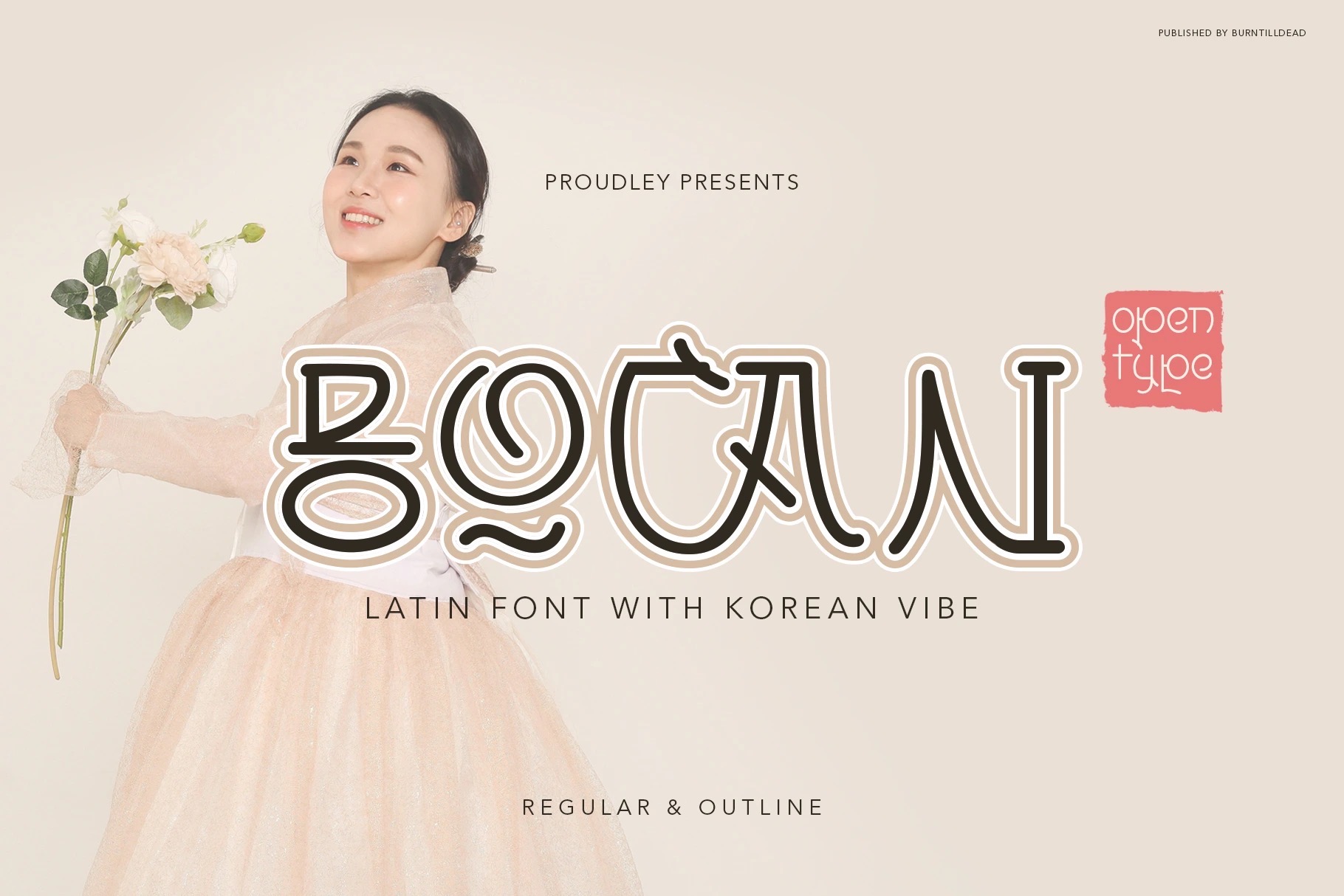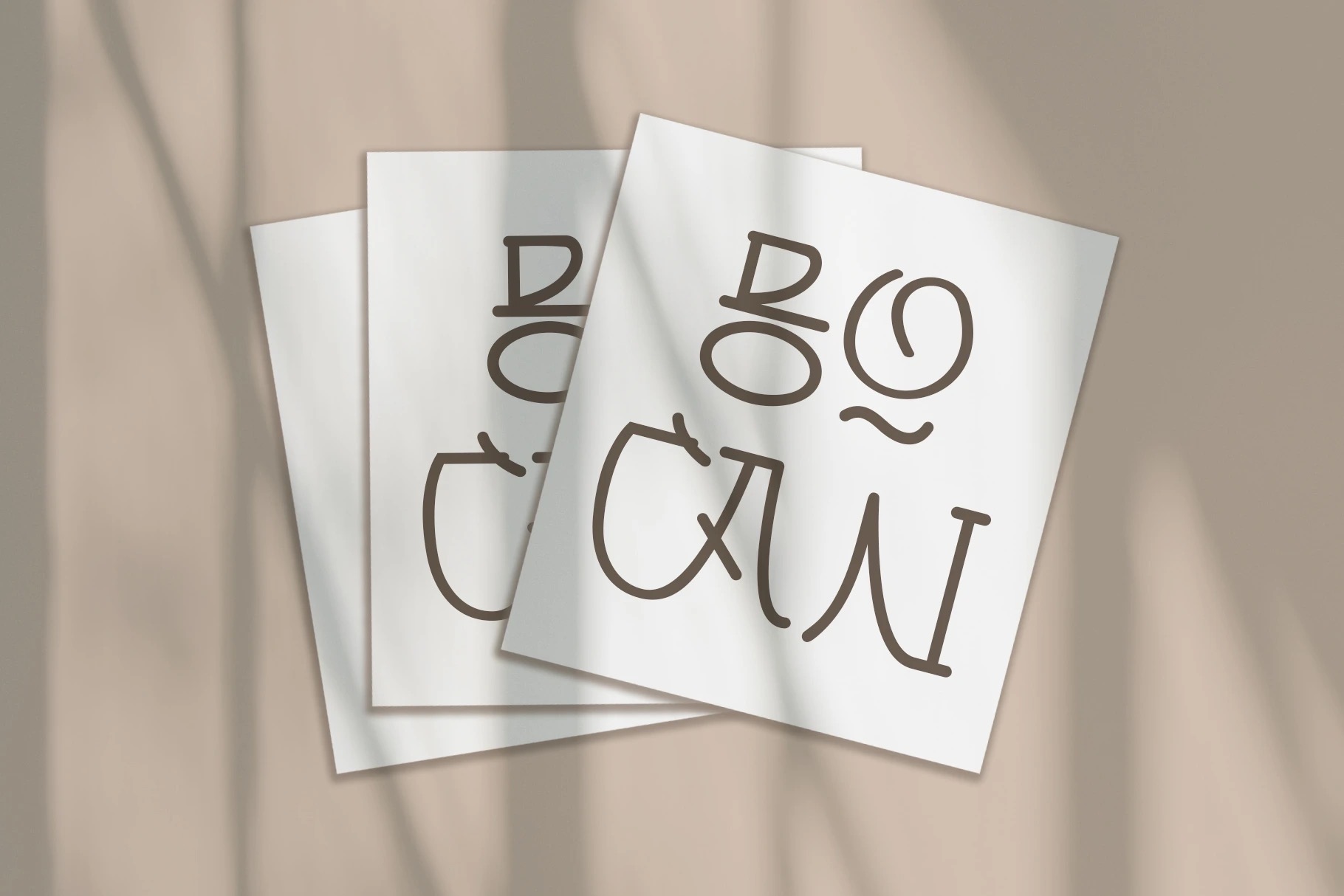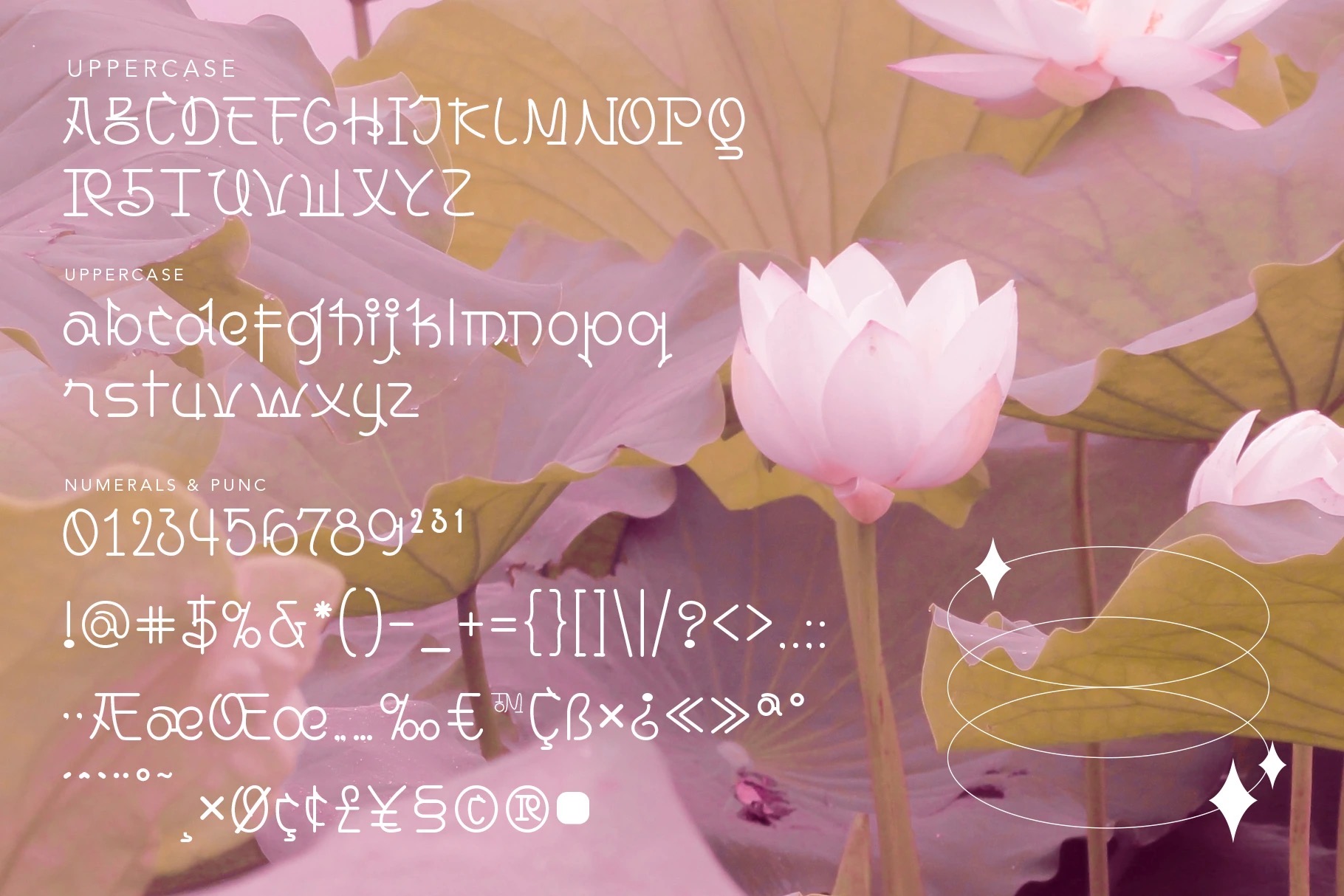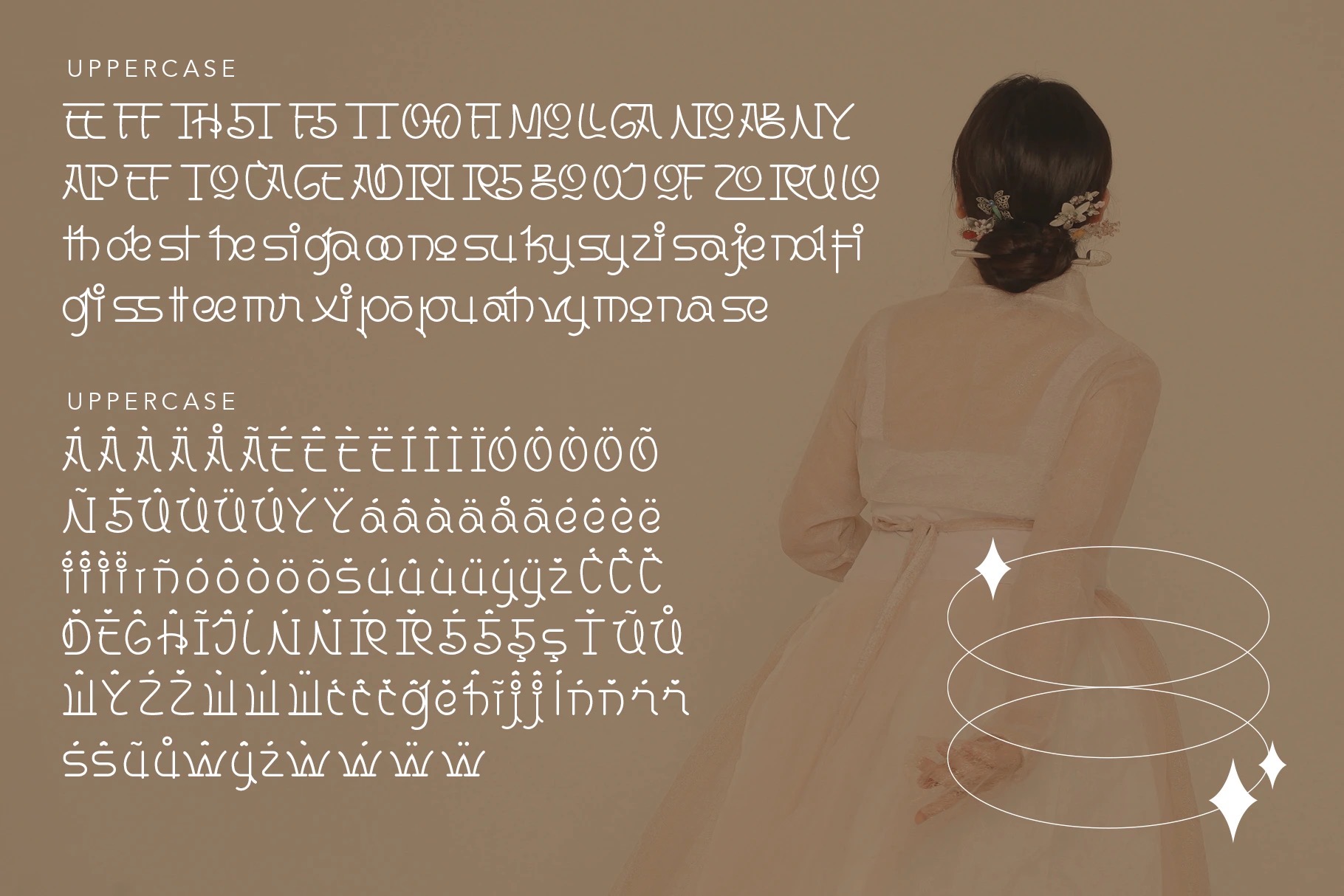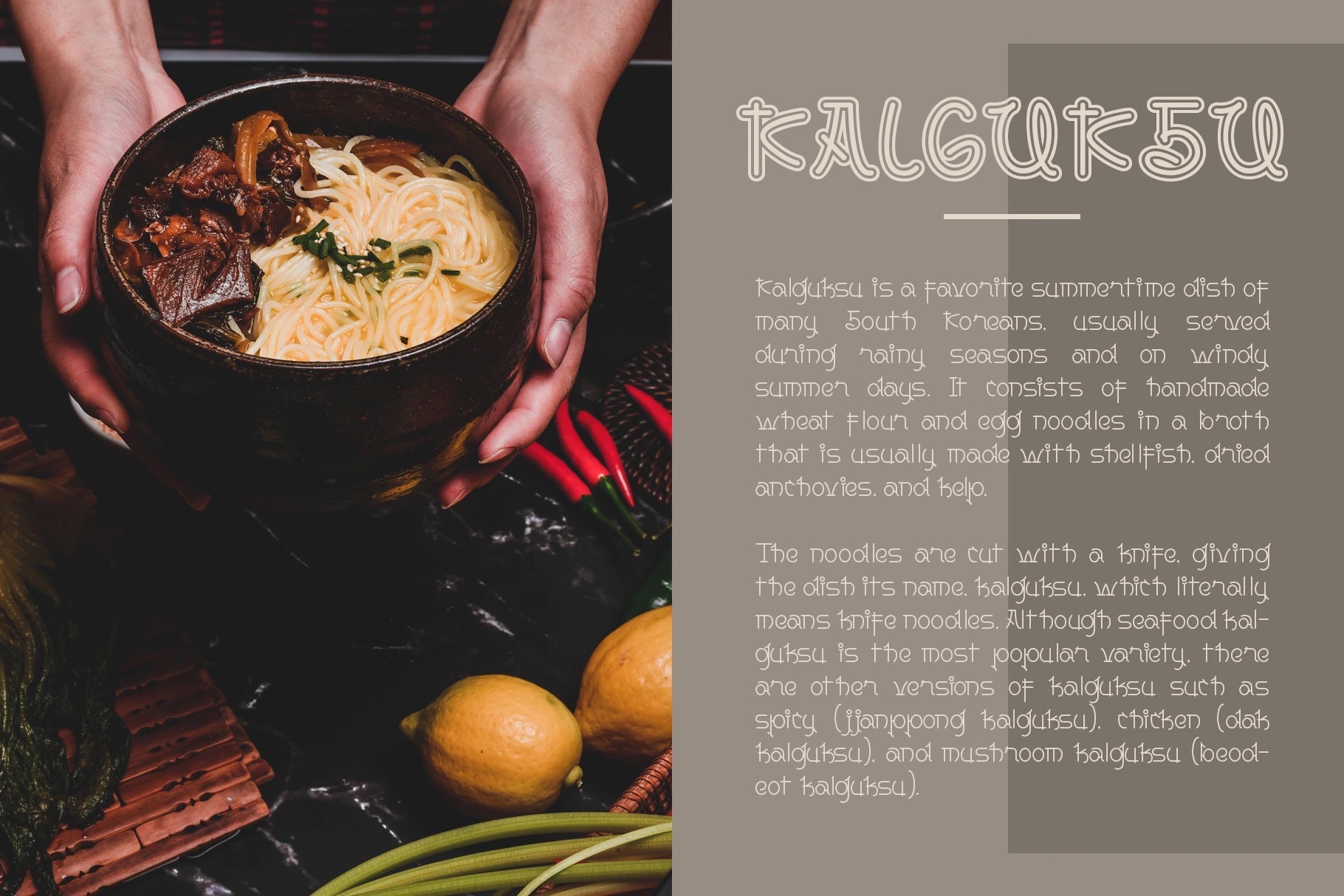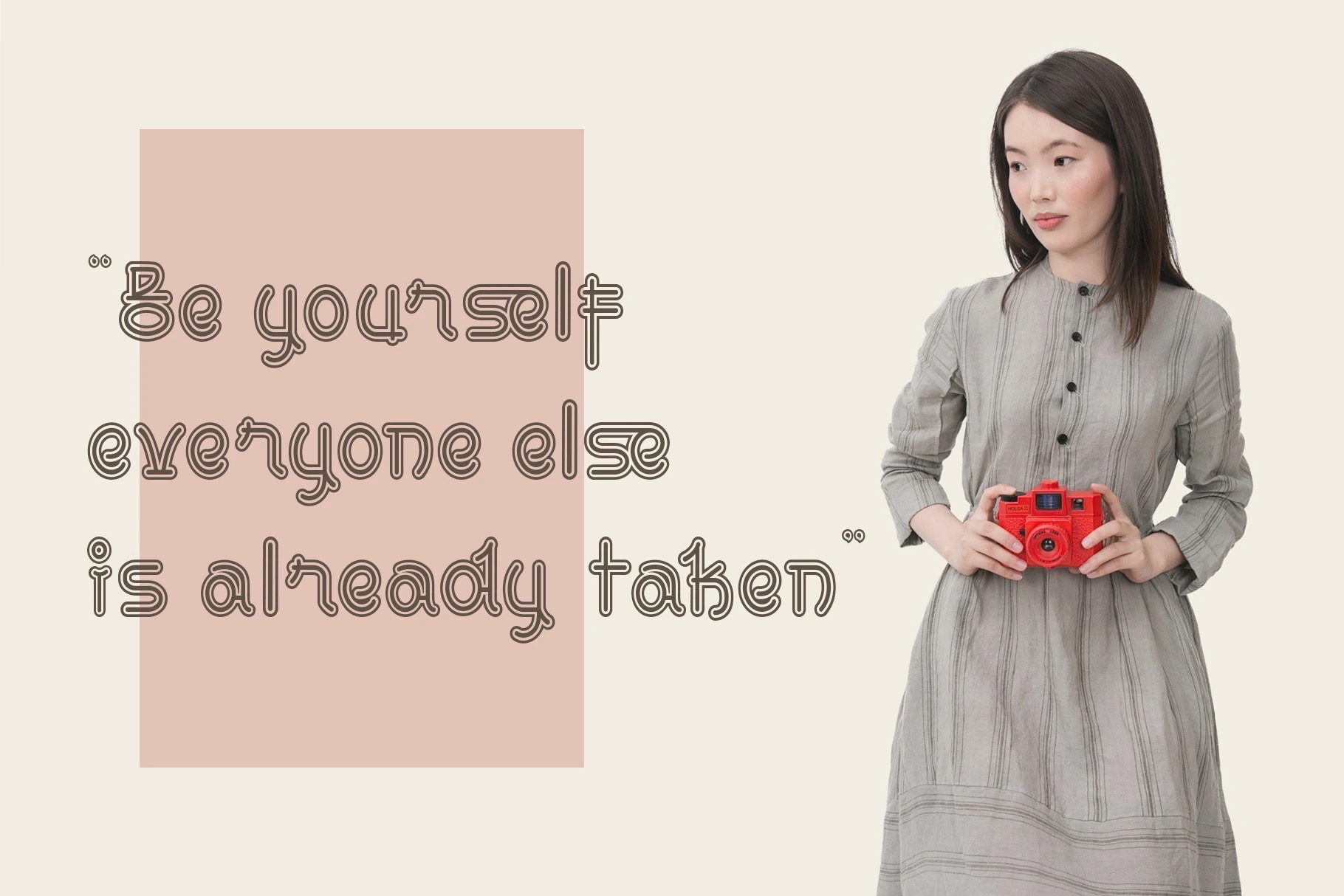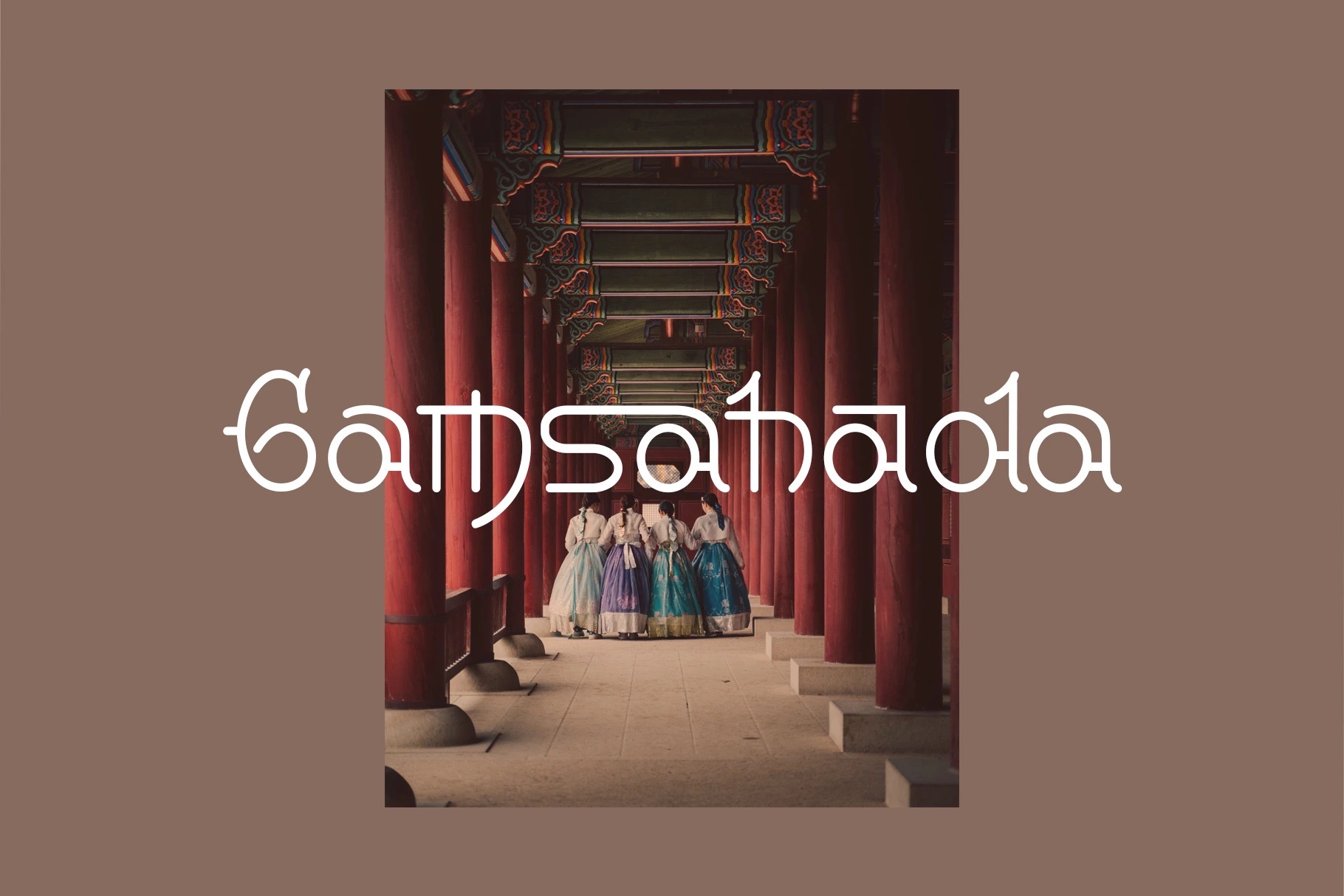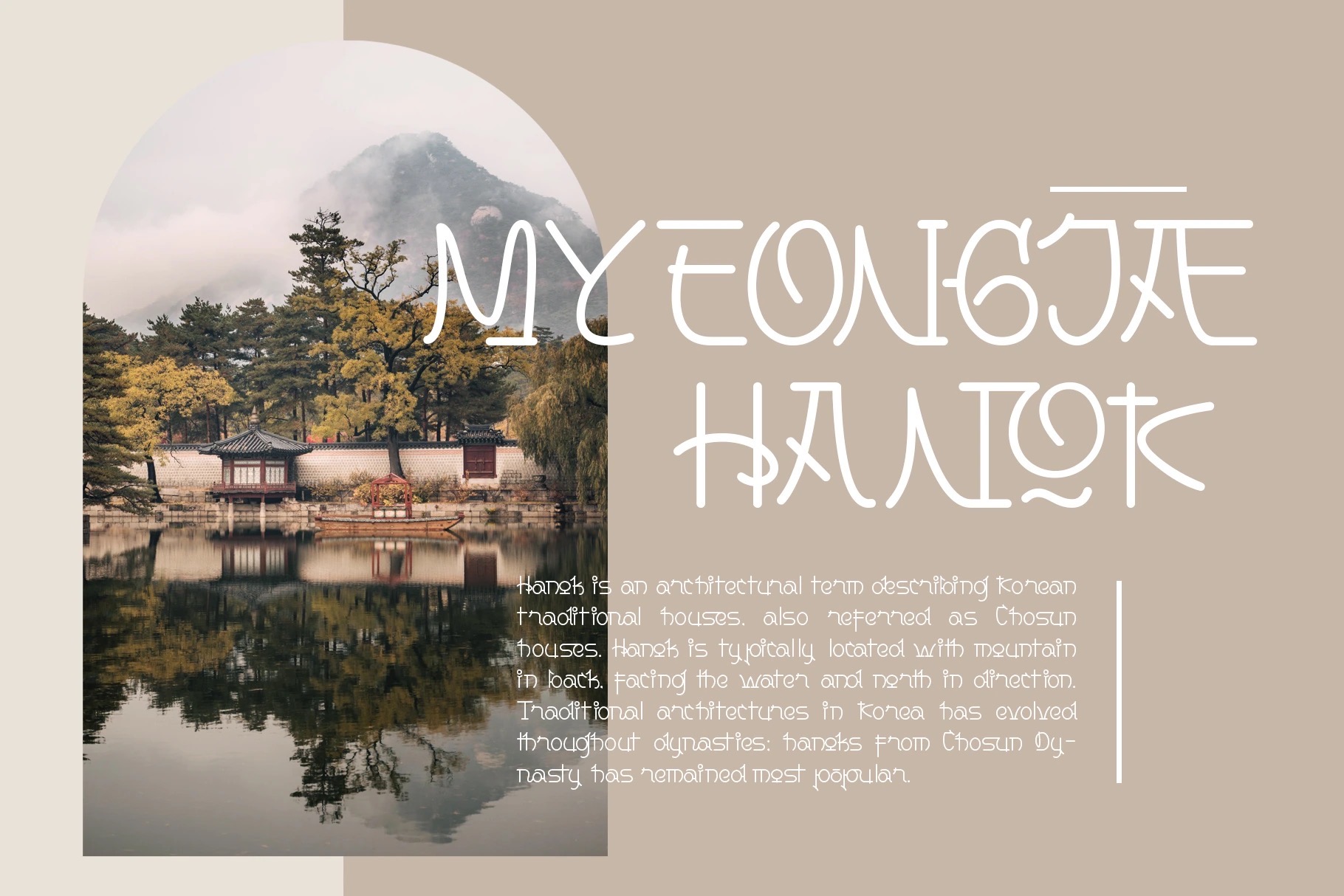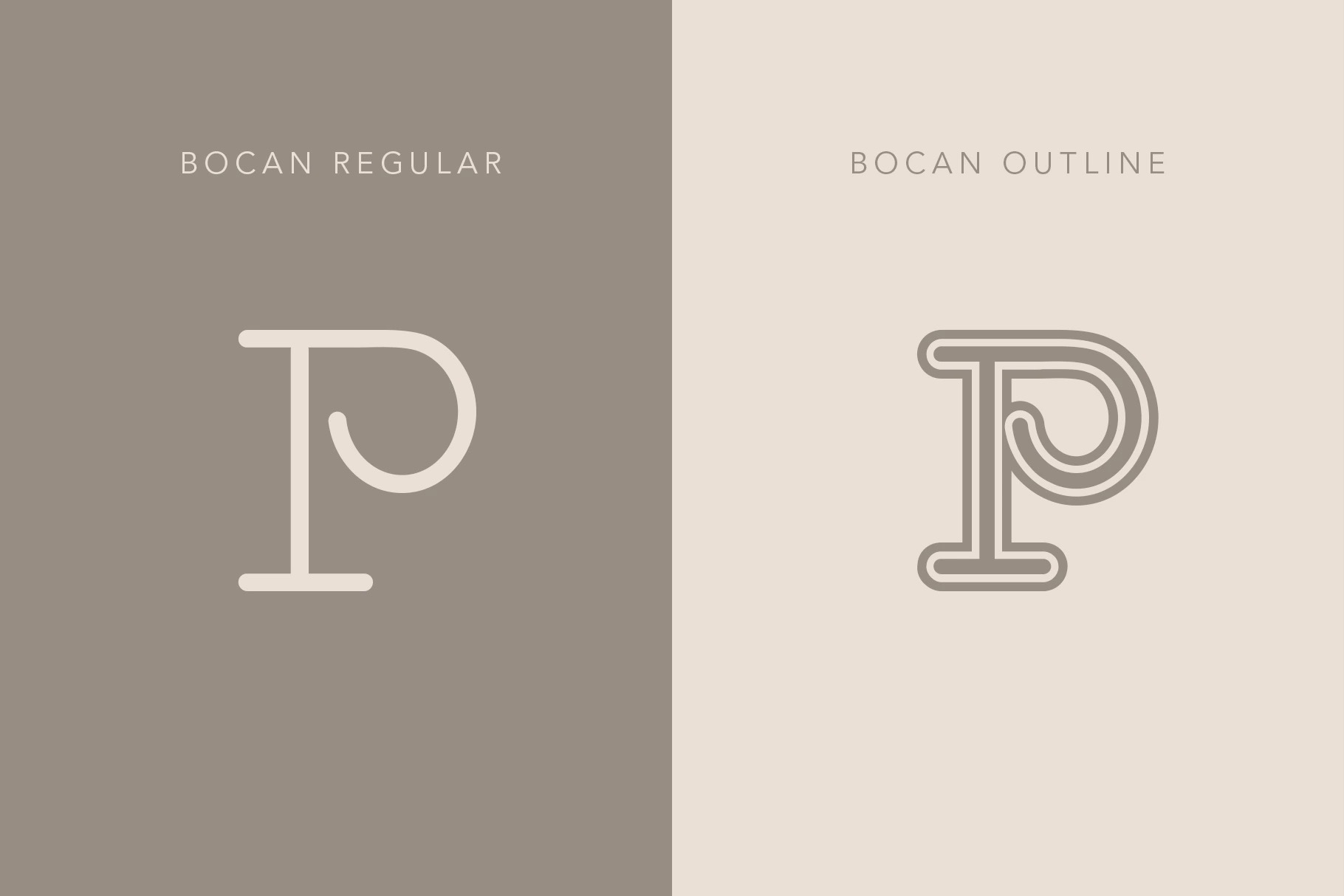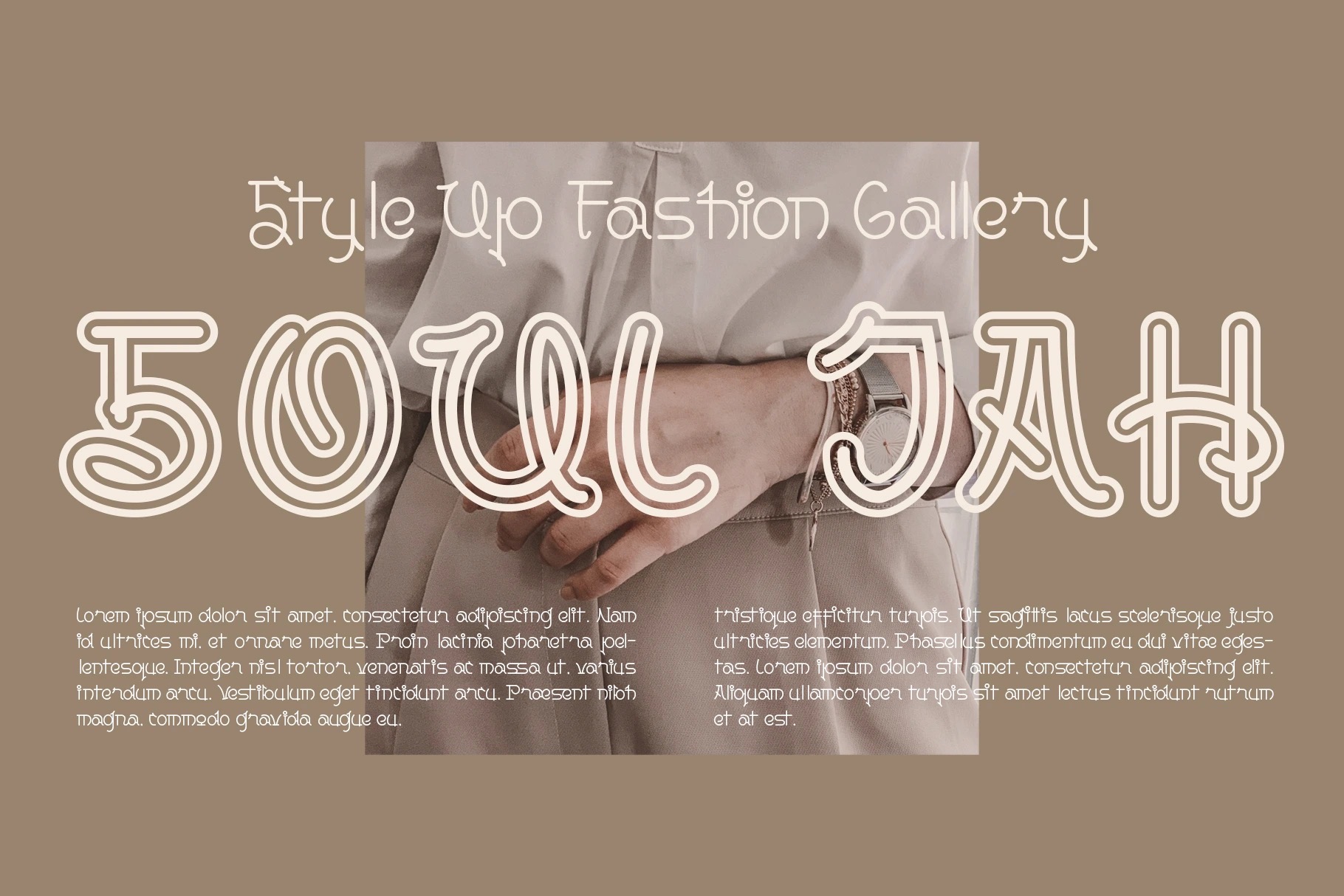
- Bocan Latin Font with Korean Style
Bocan font is inspired from Korean movie cover; stylish, unique and really iconic. It really perfect to bring Korean vibe into your designs. Comes with opentype features and 2 style ( regular & outline) to full fill many possibilities.
Bocan is perfect for the design of poster, big sale sign, movie ads, restaurant sign, packaging designs, social media campaign and many other visual design with Korean vibe.